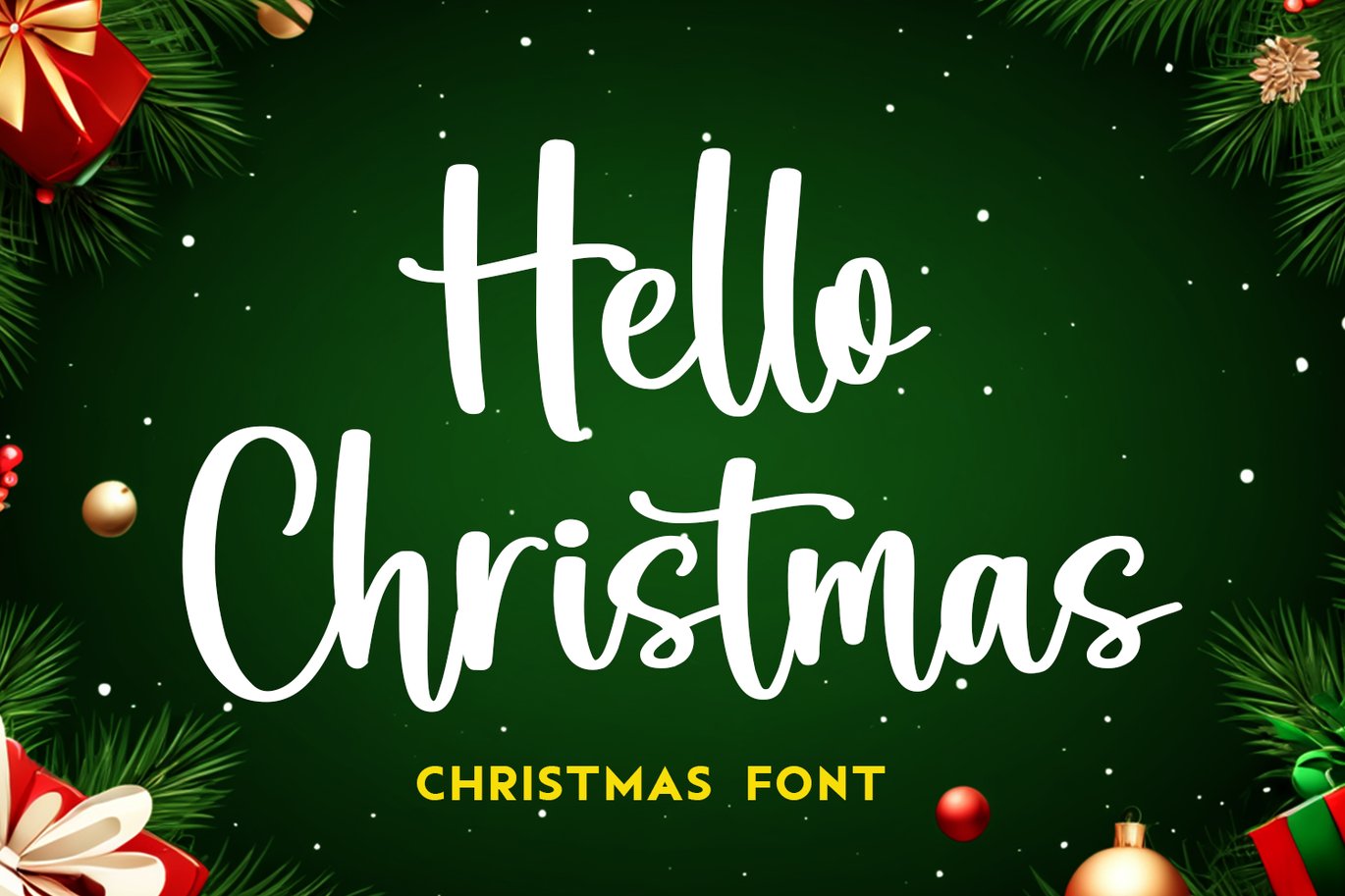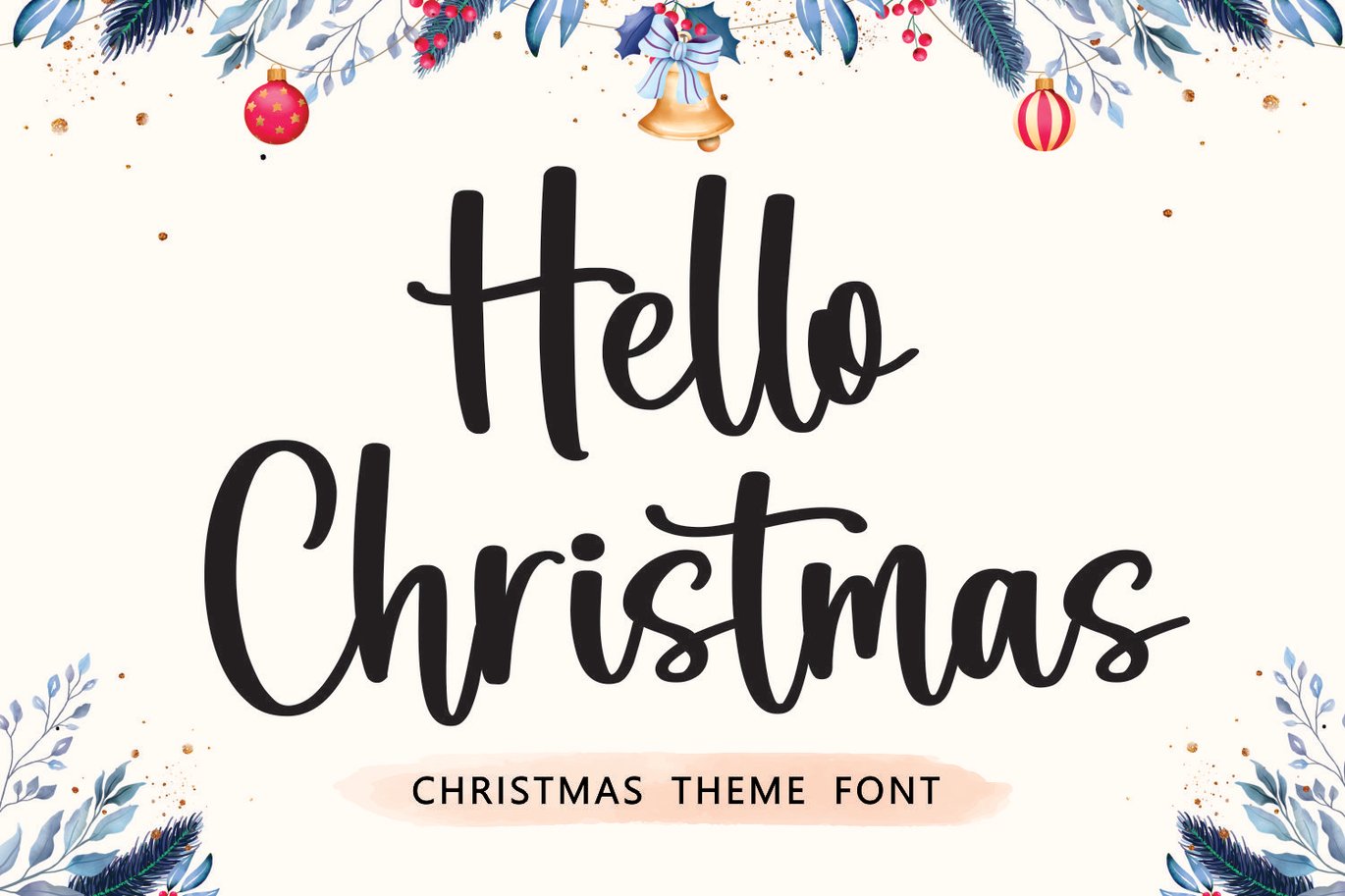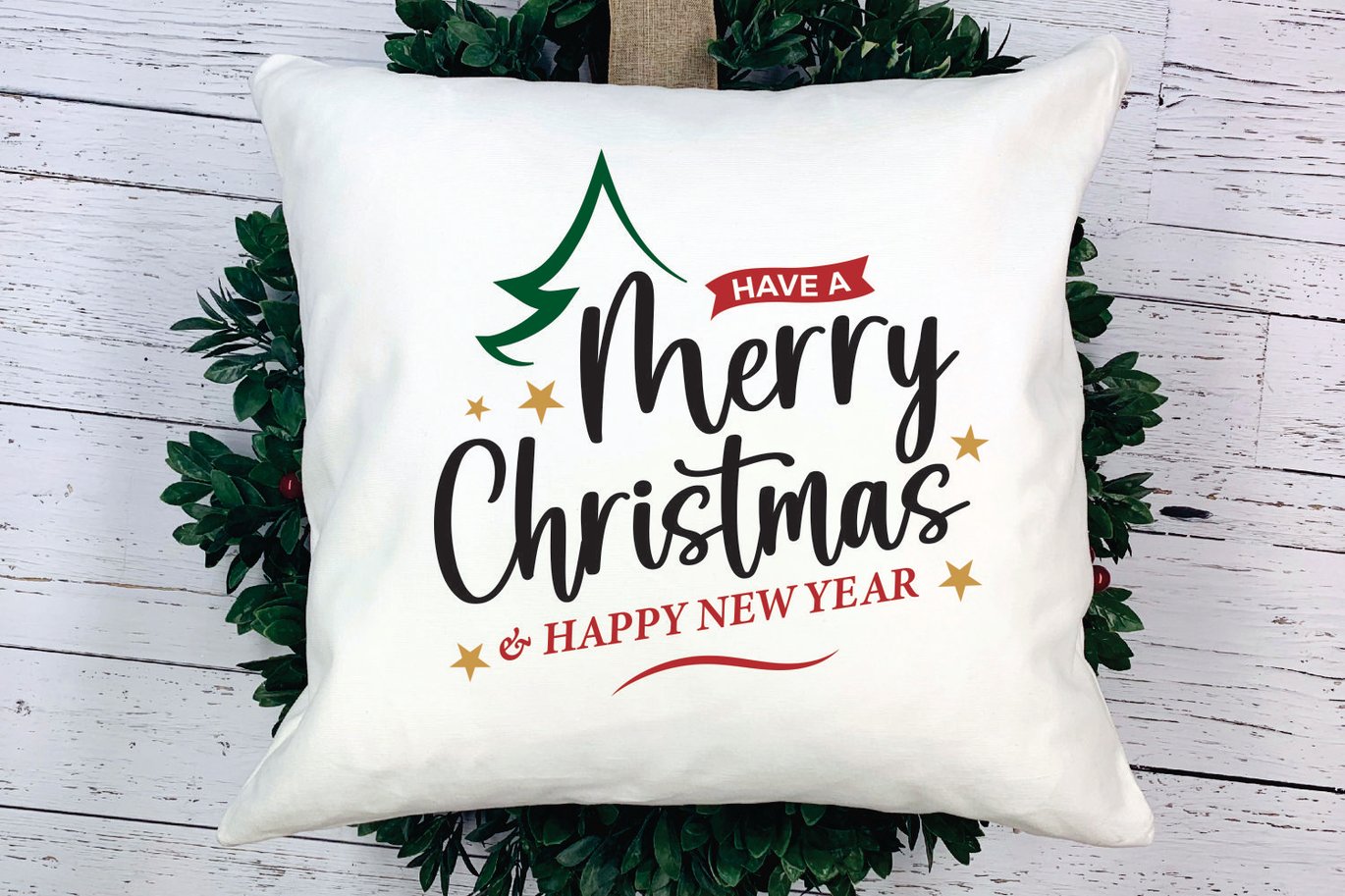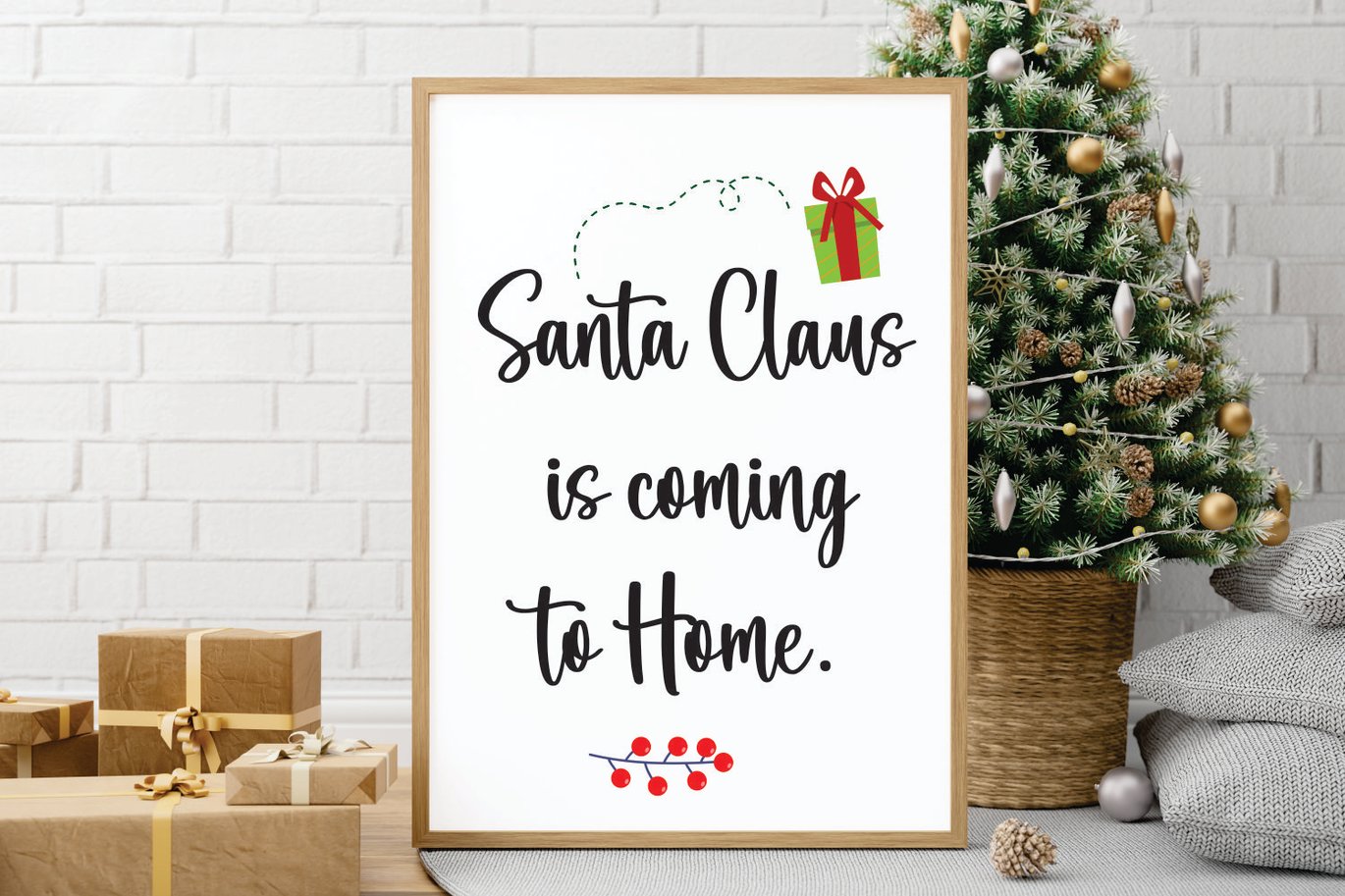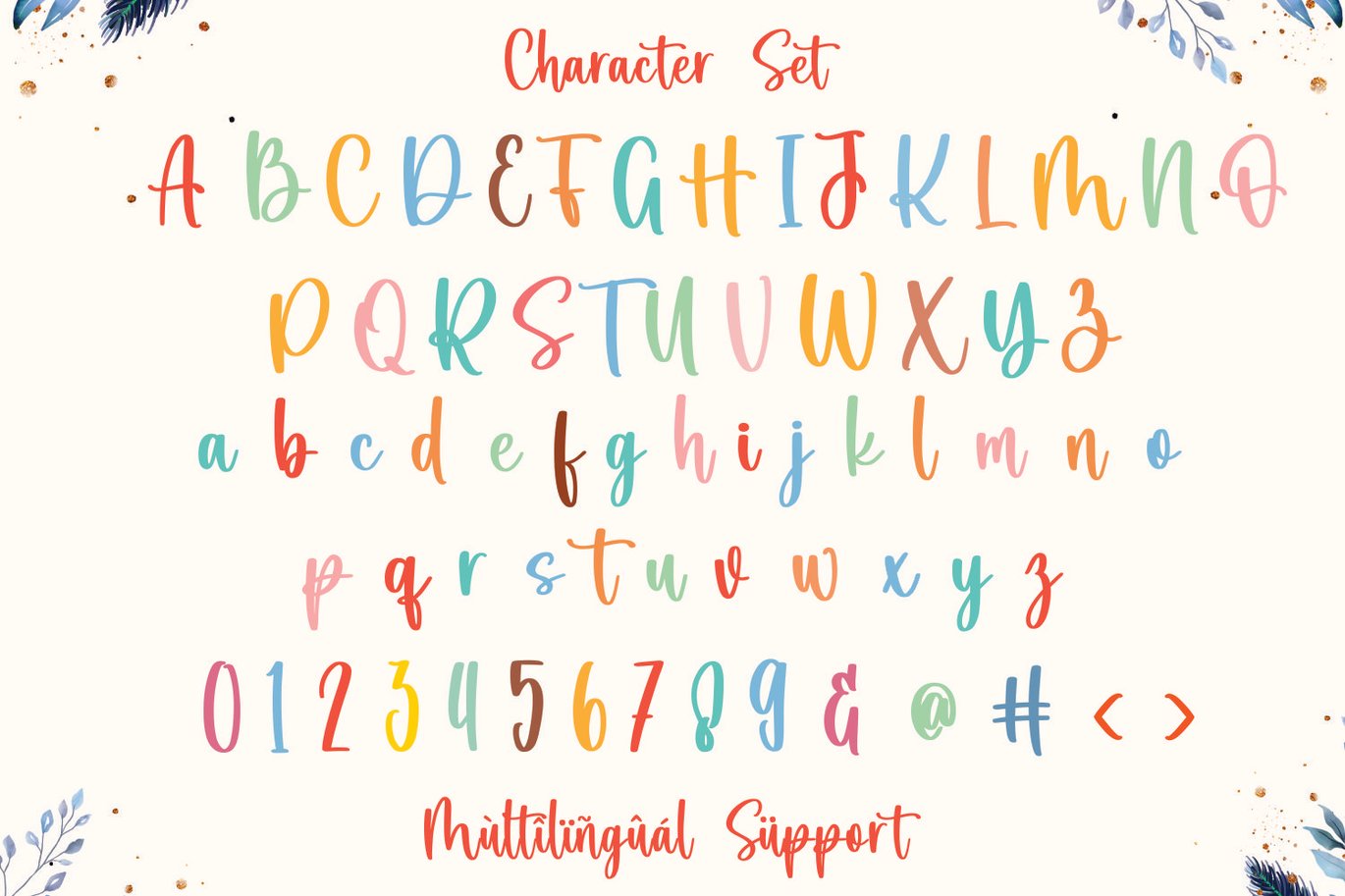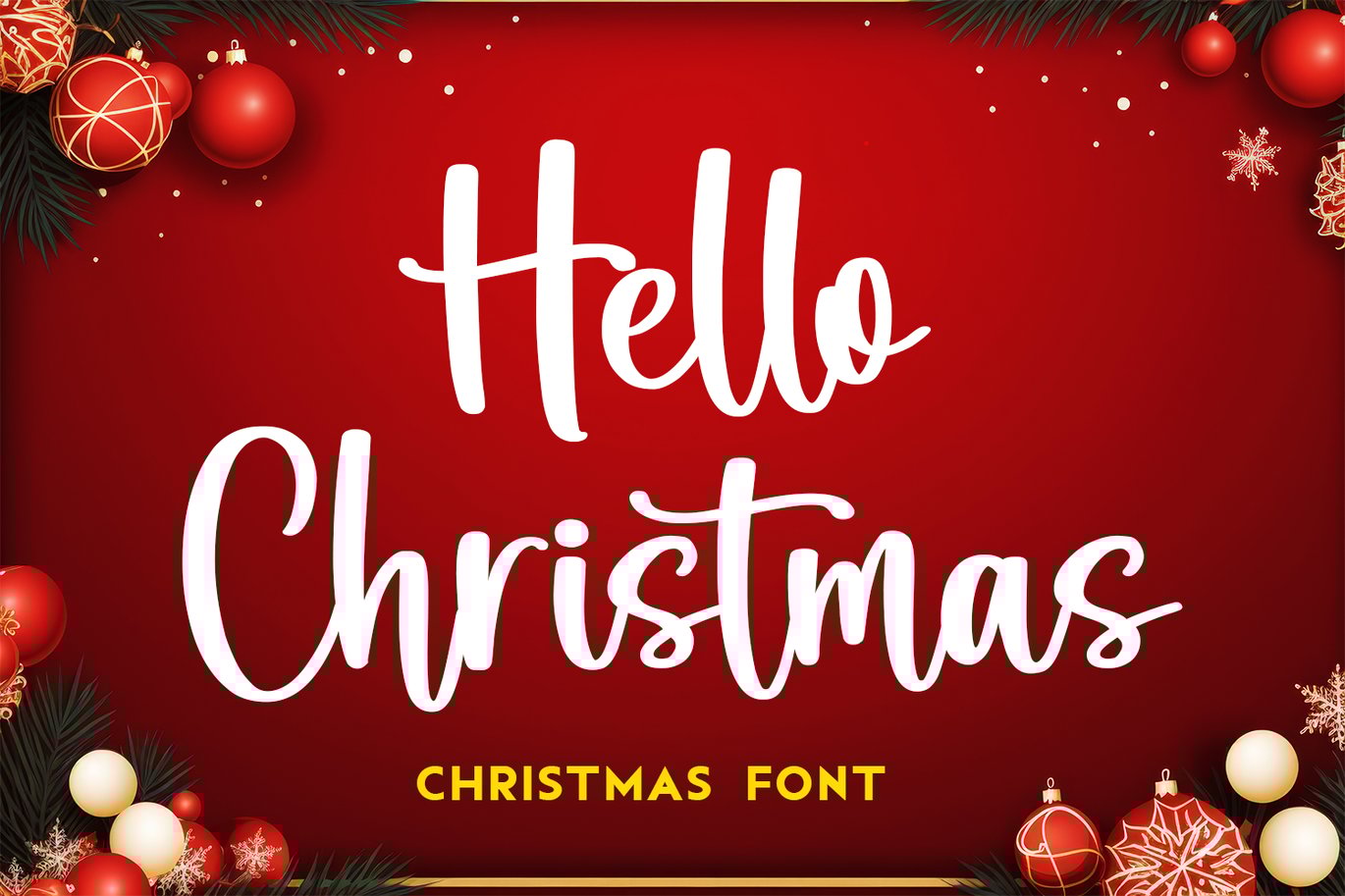
Hello Christmas Font
Introducing “Hello Christmas” – a delightful script handwritten font that brings the spirit of the holiday season to life. Get ready to infuse your craft projects, Christmas cards, New Year’s designs, and winter-themed creations with a touch of festive elegance.
Embrace the magic of “Hello Christmas” as it transports you to a winter wonderland filled with joy and warmth. With its charming handcrafted letterforms, this font captures the essence of the holiday spirit, evoking feelings of coziness and celebration. Whether you’re creating personalized crafts, holiday-themed decorations, or festive invitations, this font will add a whimsical and heartfelt touch.
Don’t let your designs blend in with the crowd this December. Stand out with the enchanting “Hello Christmas” font, perfect for adding a touch of handmade charm to your projects. Its playful curves and flowing strokes will bring your ideas to life, making every creation feel like a heartfelt gift.